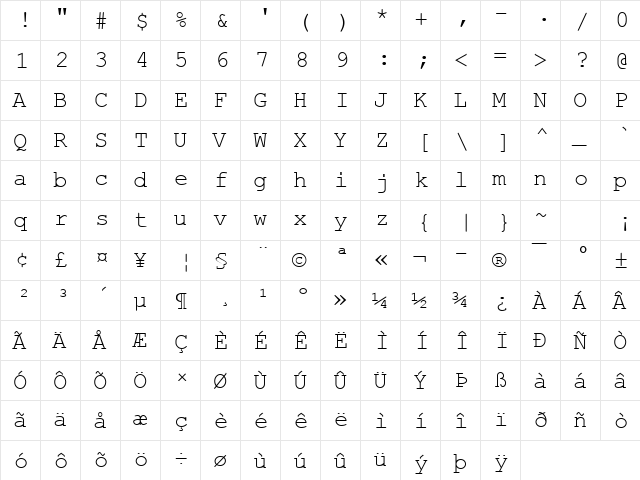
Wuzzy 4 Regular Font Preview
Wuzzy 4 Regular
Wuzzy 4 Regular Font Details
Design Context for Wuzzy 4 Typeface
Wuzzy 4 is a composed and adaptable typeface that performs quietly and consistently across a wide range of design contexts.